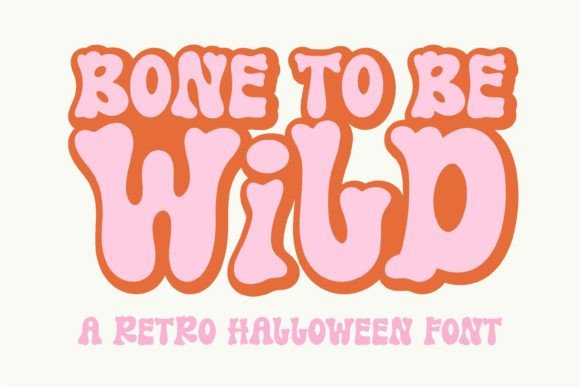
Bone to Be Wild: A Spooky Halloween Display Font
Bone to Be Wild is a display font that brings an eerie, dramatic flair to any design. With its jagged edges and whimsical style, itās ideal for creating eye-catching Halloween projects. Whether you're designing posters, invitations, or digital content for October events, this font adds a touch of spookiness that can elevate your work from ordinary to unforgettable.
Why Bone to Be Wild Matters to Different Audiences
The appeal of Bone to Be Wild varies depending on the user's background and needs. For some, it might be about aesthetics; for others, it could be practicality or brand alignment. Letās explore how different groups may find value in this unique font.
Beginners and Hobbyists: Easy Access to Creative Expression
If youāre just starting out with design or have a passion for crafting seasonal content, Bone to Be Wild offers an accessible way to add visual interest without requiring advanced skills. Its bold, playful look works well in Canva, Photoshop, or even Google Docs. You can use it to make DIY Halloween decorations, social media posts, or themed blog headers. The key here is ease of useāthis font doesnāt demand technical know-how, allowing you to focus on creativity and fun.
Professionals and Creators: Standing Out in a Crowded Market
For designers, marketers, and content creators, standing out is crucial. Bone to Be Wild helps create a distinct visual identity for Halloween campaigns, product launches, or themed content. Itās especially effective in branding for horror-themed products, spooky podcasts, or haunted event promotions. The fontās uniqueness makes it a powerful tool for capturing attention and leaving a lasting impression. When used correctly, it can differentiate your work from generic templates or standard typefaces.
Business Owners and Entrepreneurs: Enhancing Seasonal Marketing
October is a prime time for businesses to engage customers through themed promotions. If you run a cafĆ©, boutique, or online store, using Bone to Be Wild in your marketing materialsālike holiday menus, limited-time offers, or social media graphicsācan help build excitement and drive sales. The font conveys both fun and fear, making it versatile enough to suit everything from lighthearted candy shop signage to more intense horror movie poster designs. Business owners often prioritize cost-effectiveness and speed, and this font fits both criteria by being widely available and quick to implement.
Bloggers and Publishers: Boosting Visual Engagement
Halloween is a popular topic for bloggers and publishers covering lifestyle, fashion, food, or entertainment. Bone to Be Wild can enhance blog titles, newsletter headers, or article thumbnails with its dramatic character. It adds a sense of urgency and festivity that can boost click-through rates and reader engagement. Bloggers looking to maintain a cohesive aesthetic while injecting seasonal flair will appreciate how this font blends creativity with usability across platforms like WordPress or Squarespace.
Educators and Event Planners: Thematic Creativity for Learning and Fun
Educators planning Halloween activities for students can use Bone to Be Wild to make worksheets, classroom decorations, or themed announcements more engaging. Similarly, event planners organizing parties, haunted houses, or charity galas might incorporate the font into signage, tickets, or promotional flyers. In these cases, the font serves as a visual anchor that ties together the spooky atmosphere and enhances the overall experience. Educators and planners often seek fonts that are easy to read at a glance while still being thematically appropriateāa balance Bone to Be Wild achieves well.
How to Use Bone to Be Wild Effectively
Using Bone to Be Wild effectively depends on understanding where and when to apply it. Here are a few tips across different use cases:
- Web Design: Limit the font to headlines or call-to-action buttons to avoid overwhelming users with too much text in one style.
- Print Materials: Ensure the font size is large enough for readability, especially in environments with low lighting like a haunted house.
- Social Media: Pair the font with high-contrast colors and Halloween imagery to create a cohesive theme that stands out in crowded feeds.
- Graphic Design Projects: Combine it with simpler sans-serif or serif fonts to balance drama with clarity, especially in multi-line layouts.
Practical Examples Across Industries
Hereās how different professionals might use Bone to Be Wild in their work:
- Marketing Agencies: They might recommend it for clients launching Halloween-themed campaigns, such as costume contests or pumpkin patch promotions.
- Freelance Designers: Include it in a portfolio to showcase versatility in seasonal typography, helping attract clients who need creative Halloween assets.
- Restaurant Owners: Apply it to Halloween dinner menu headers or special offer banners to create a festive vibe and encourage customer interaction.
- Photographers: Use it in captions for Halloween photo sessions or on custom thank-you cards to give their work a personalized touch.
Final Thoughts
Bone to Be Wild isn't just another Halloween fontāit's a tool that can transform how your message is received. Whether you're a small business owner looking to boost sales or a designer wanting to impress clients, this font has the potential to make your project stand out. By considering your audience, purpose, and platform, you can determine how best to use itāor if itās the right match at all.